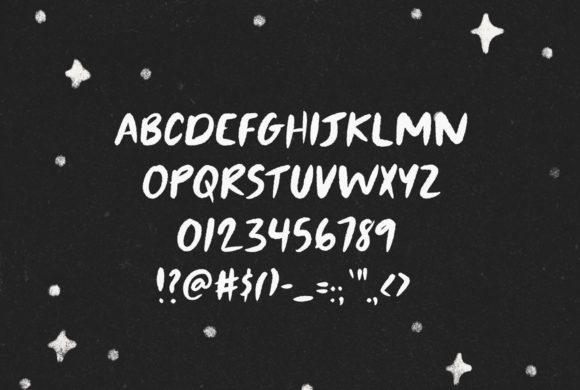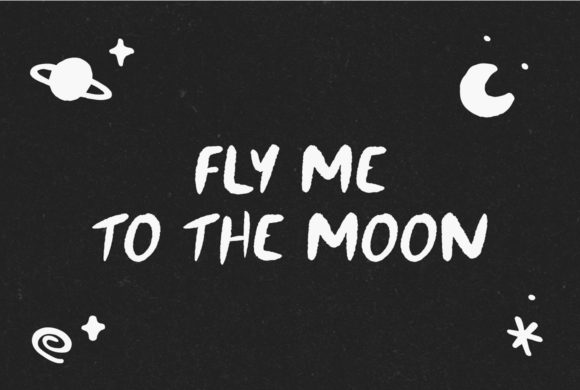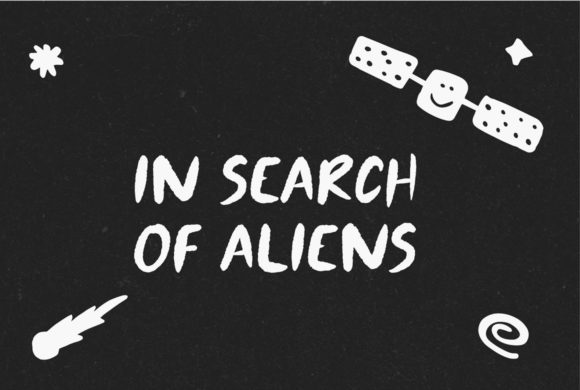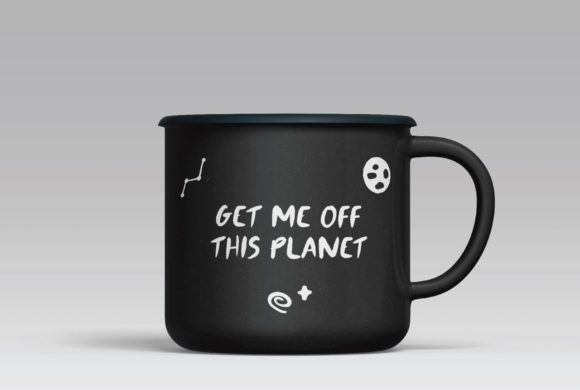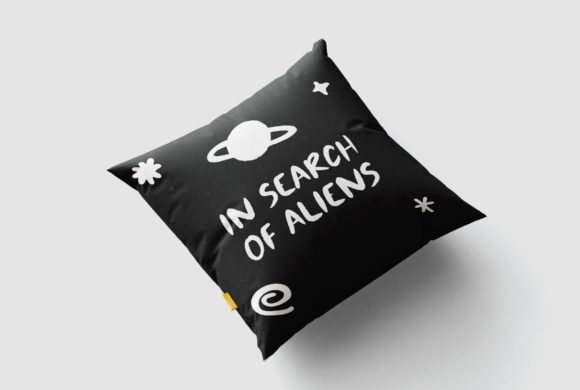
Introduction to Outer Space Font
Outer Space font and graphics kit is a playful handwritten font that is perfect for adding a personal touch to your next project.
Outer Space is a handwritten UPPERCASE simple and bold display font Outer Space display font works great for creating logos, quotes to share on Instagram, social media, and more.